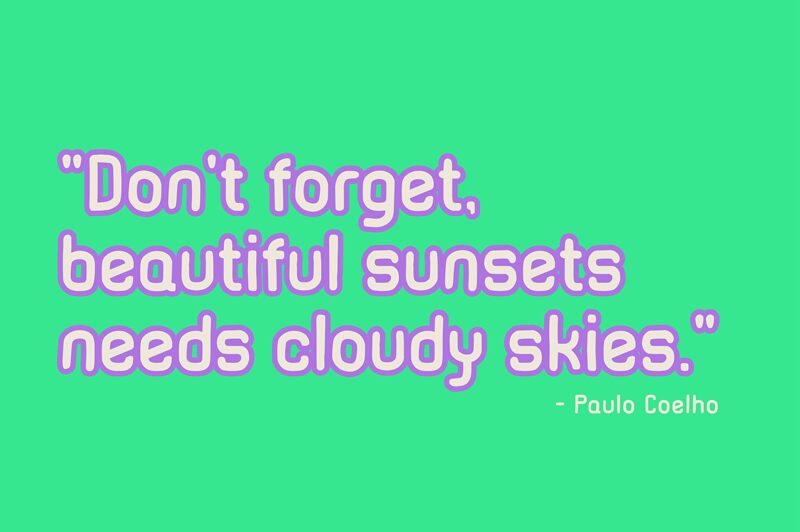
Cakadidi
Cakadidi, a display font designed by Two Us Studio, is the perfect choice for projects that require a touch of playfulness and creativity. The semi-light font weight adds just the right amount of delicacy without sacrificing legibility. Its unique style allows it to stand out on posters, book covers, and packaging designs. Cakadidi's versatility makes it suitable for a wide range of designs including children's books, food packaging, and greeting cards. With its whimsical charm and attention-grabbing design, Cakadidi is sure to add personality to any project.